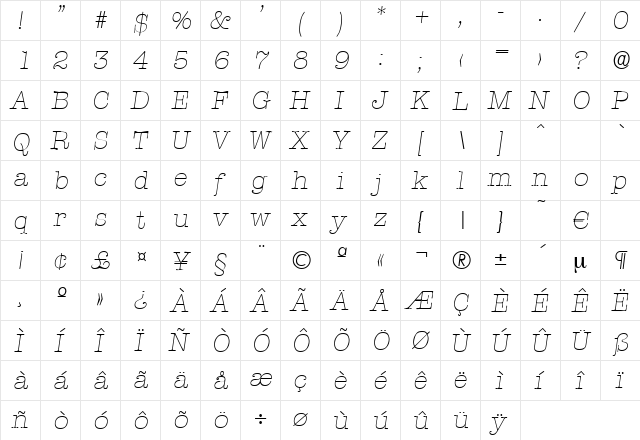
Typewriter-XlightIta Regular Font Preview
Typewriter-XlightIta Regular
Design Context for Typewriter-XlightIta Typeface
Typewriter-XlightIta brings the precise, column-aligned rhythm of monospaced typography to designs that value technical clarity and systematic order. Its slender proportions lend an understated elegance to any composition.